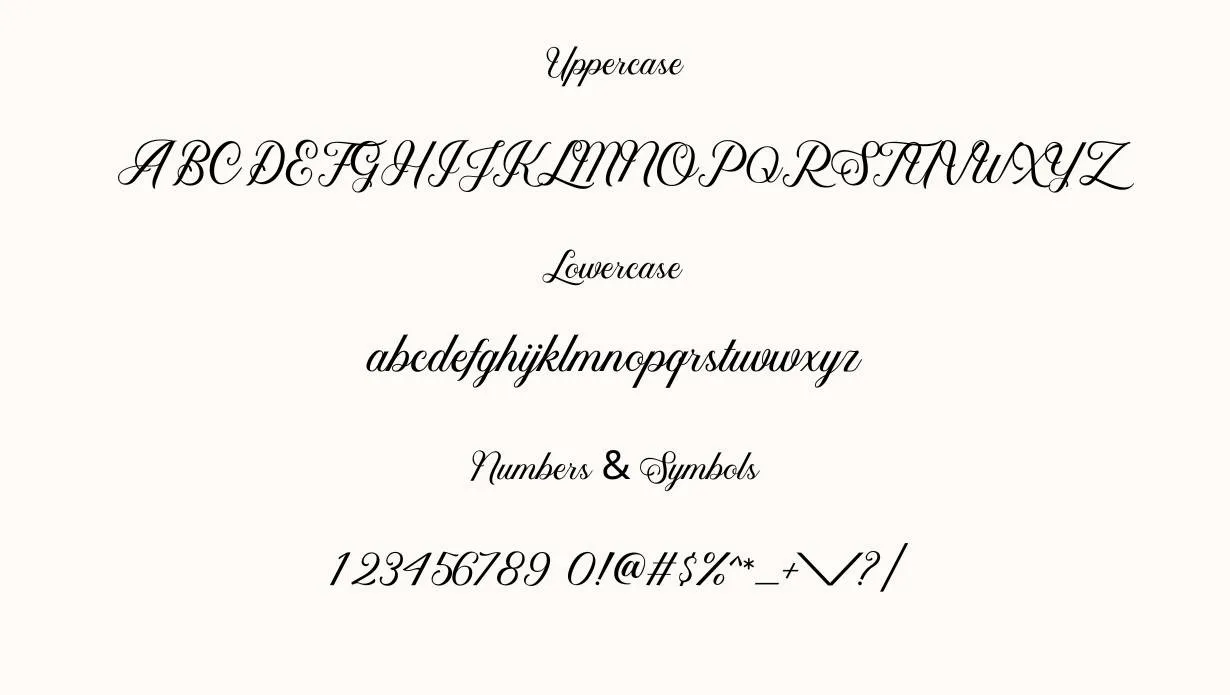
Kaylar font emerges as a versatile storyteller, adapting seamlessly to various themes with an innate ease.
Whether your project leans towards formality or creativity, Kaylar effortlessly fits into the narrative you wish to convey. It becomes the go-to choice for a range of designs that demand adaptability and versatility, turning each word into a versatile element in your creative canvas.
| Name | Kaylar Font |
| Designer | Letterhend Studio |